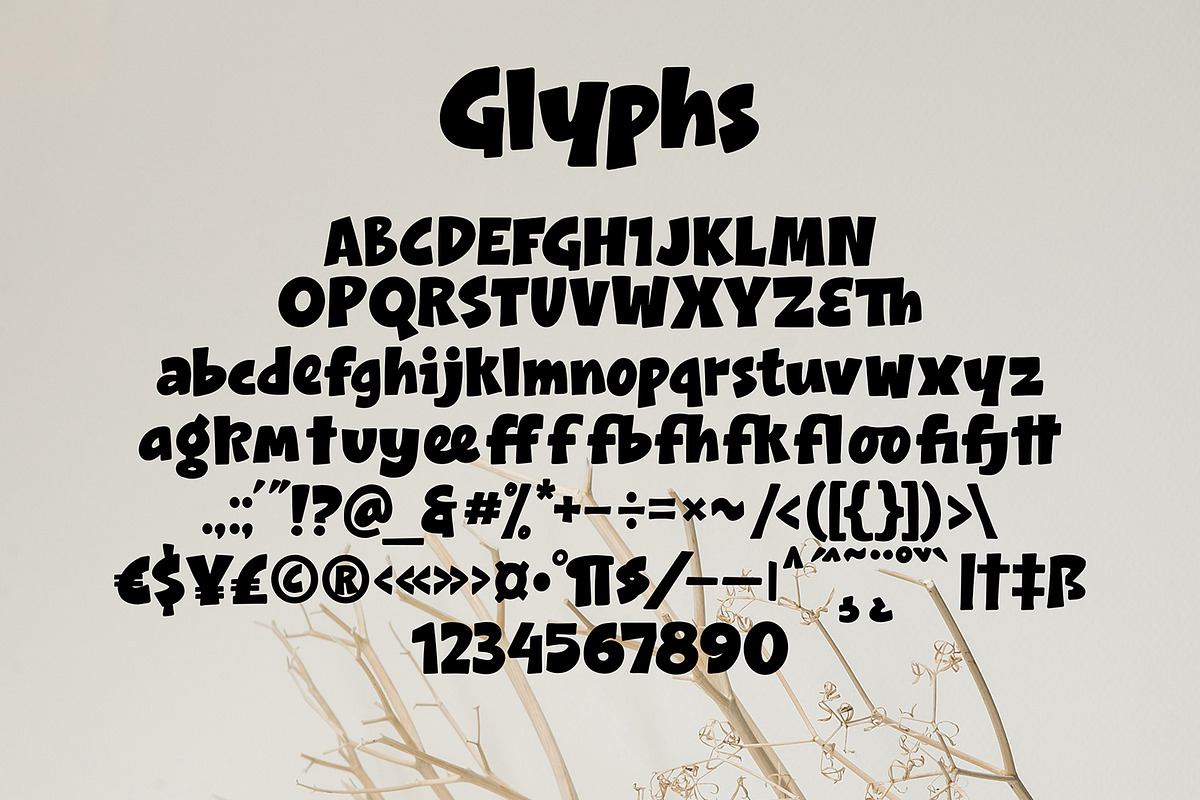
Cloody – Display Font Free Download is a bold and stylish typeface designed to make a statement. With its strong curves, thick strokes, and playful character, Cloody is perfect for posters, branding, logo designs, merchandise, editorial titles, and anything that needs eye-catching typography with a unique twist.
Crafted for maximum visual impact, Cloody – Display Font Free Download brings a mix of retro charm and modern confidence. Its chunky letterforms and expressive style make it a great choice for display use where you want the type to take center stage.